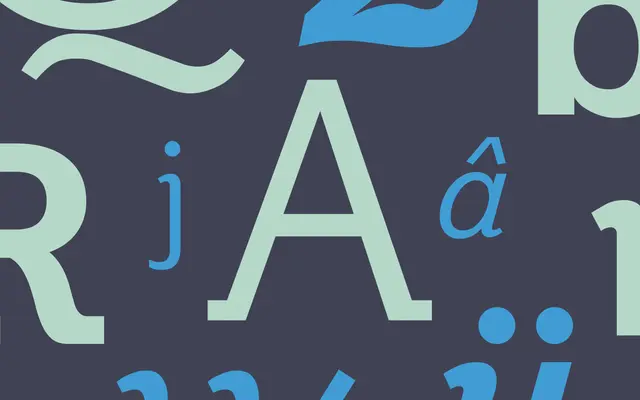
Plume specimen from Dalton Maag
An italic-led serif by Bruno Maag inspired by early italic typewriter fonts, with a Text family and a more expressive Advertising cut.
A serif by Bruno Maag rooted in the italic typewriter typefaces of the early twentieth century. Six styles run across Regular and Bold with true italics, plus an Advertising cut with adapted shapes for headline use. Whimsical shaping, unusual serif placement, prominent diacritics and playful outstrokes give it an editorial voice that leans into character rather than neutrality. Suits literary editorial, packaging and titling that want warmth and personality.
Dalton Maag describe Plume as a flowing serif initially inspired by the elegance of early italic typewriter fonts, combining beauty and functionality with high legibility and supremely expressive forms.
Plume Advertising